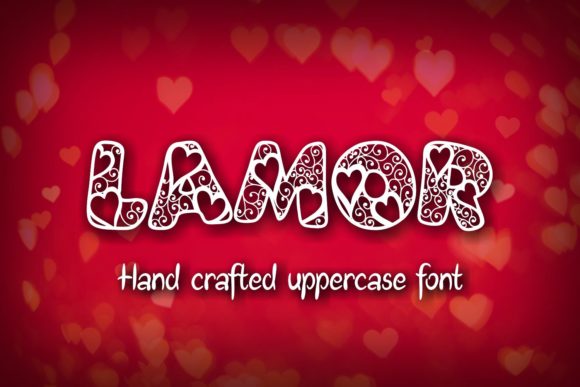
Welcome to the world of Lamor Font, a breathtaking decorative font, handcrafted by the ingenious minds at Digital Typeface Studio. This uppercase font isn't just a collection of letters; it's an expression of love, adorned with an array of exquisite hearts. Prepare to fall head over heels for this font's captivating charm.
Lamor Font isn't merely a font; it's an ode to romance, a celebration of affection. Its letters, elegantly drawn with a touch of playfulness, are adorned with delicate hearts, transforming your words into heartfelt messages. Whether you're a seasoned designer or a casual crafting enthusiast, Lamor Font is your perfect companion for creating stunning projects that speak straight to the heart.
Imagine your designs blossoming with the beauty of Lamor Font. Create enchanting Valentine's Day cards that radiate love, design eye-catching social media posts that spread joy, or craft personalized gifts that leave a lasting impression. Lamor Font's versatility extends beyond romantic expressions; it's a font of whimsy, perfect for adding a touch of charm to invitations, posters, and even logos.
With Lamor Font, you can effortlessly elevate your designs, making them radiate with warmth, happiness, and a touch of magic. Its friendly and inviting style makes it ideal for capturing the attention of your audience, leaving them smitten with your creations.